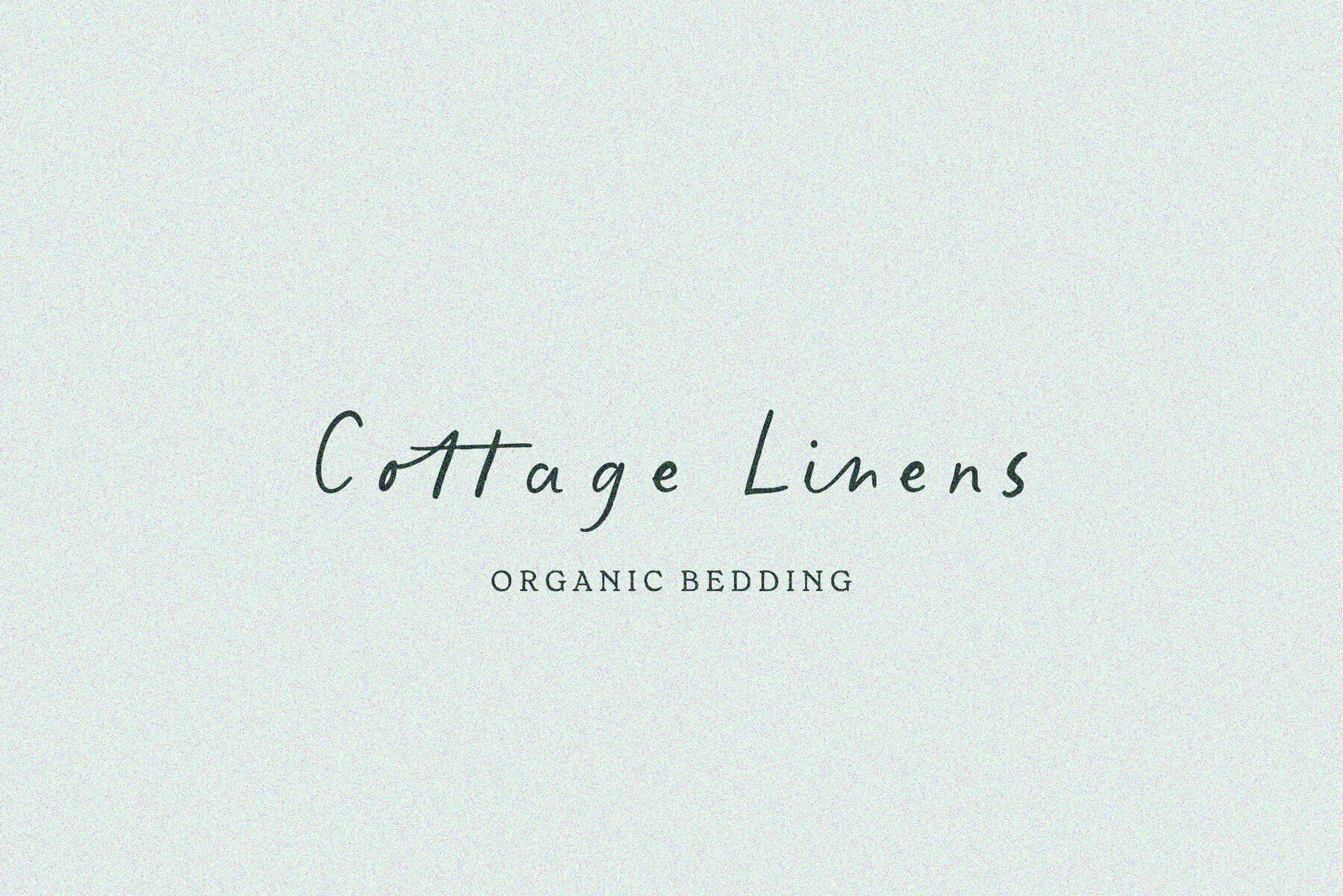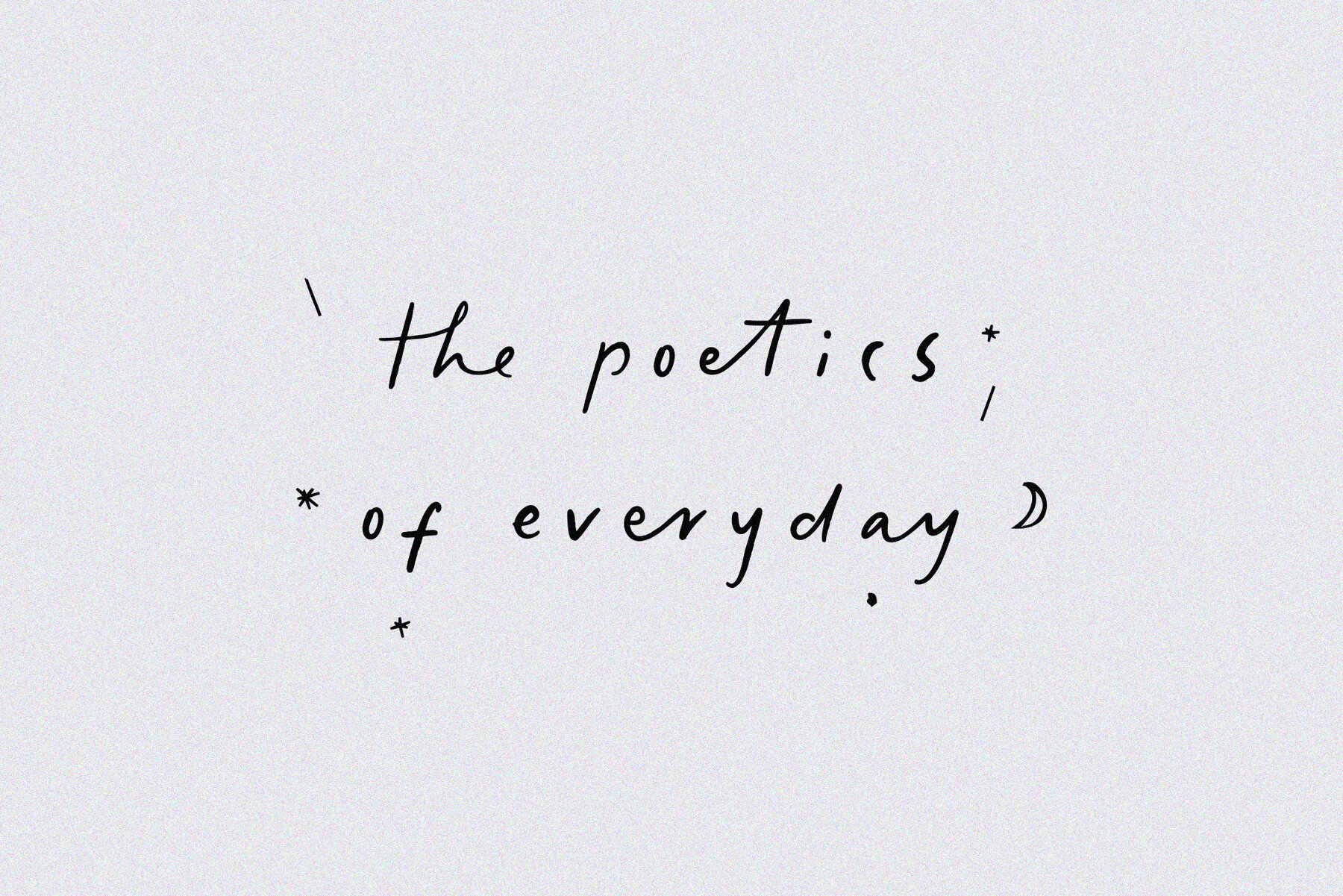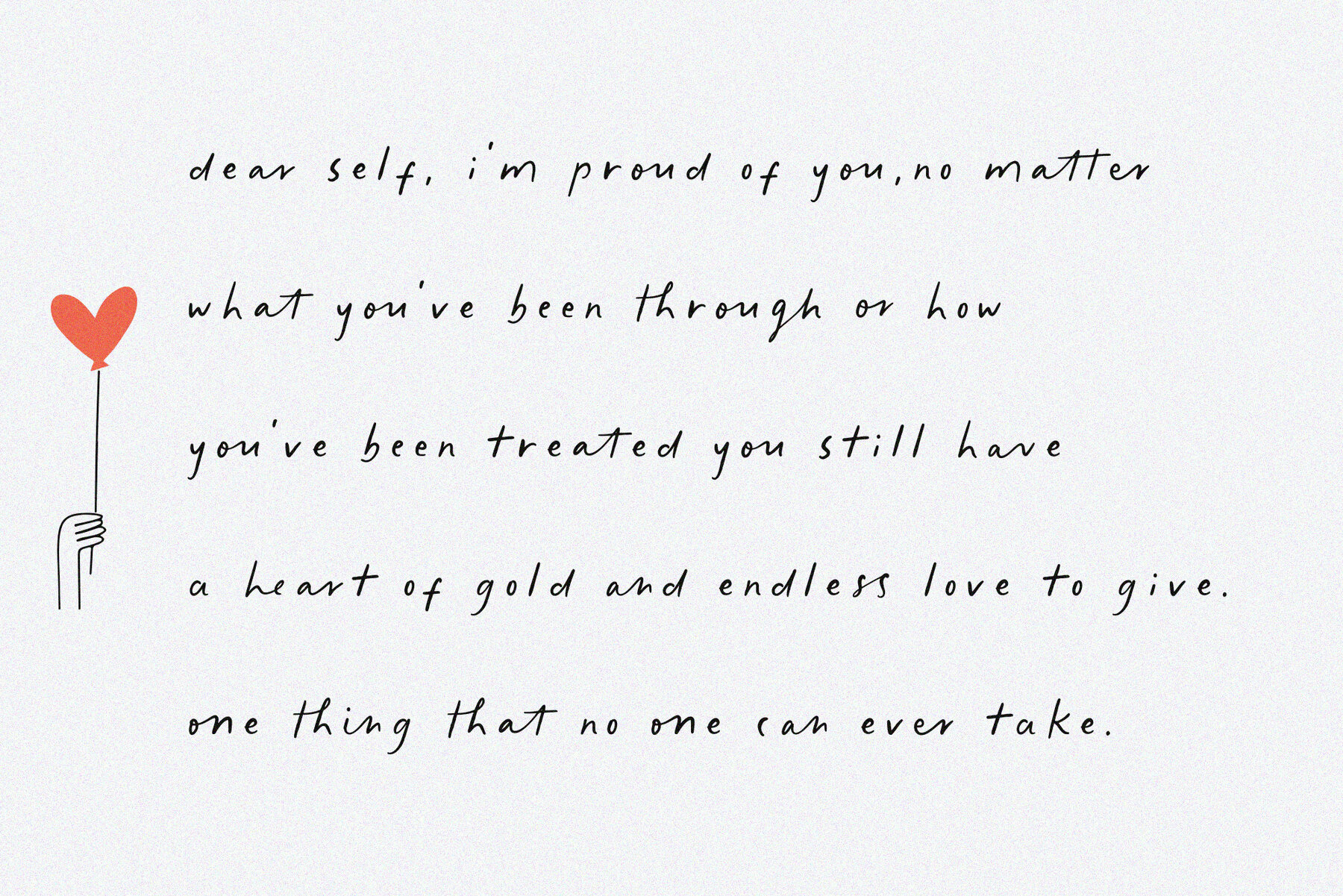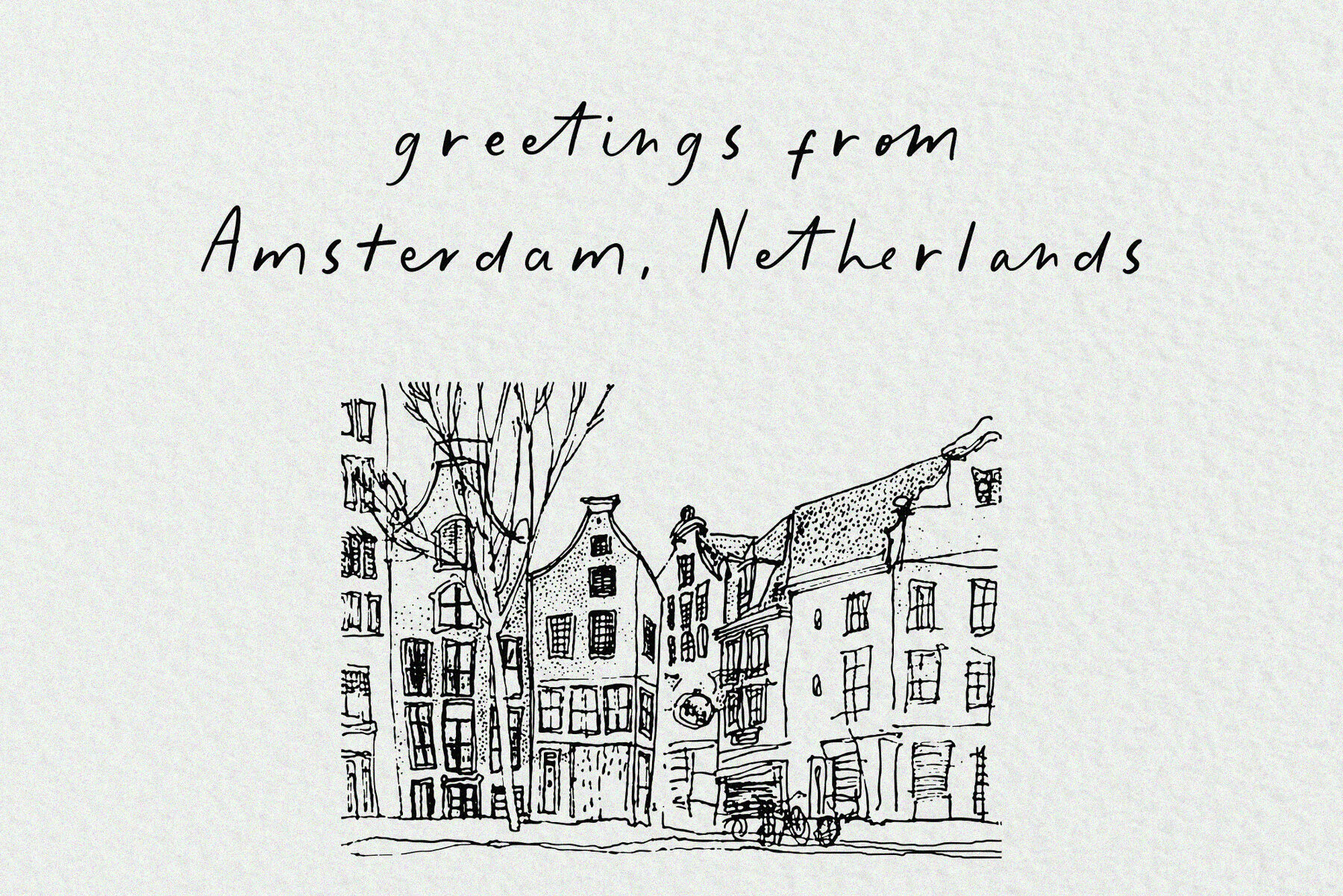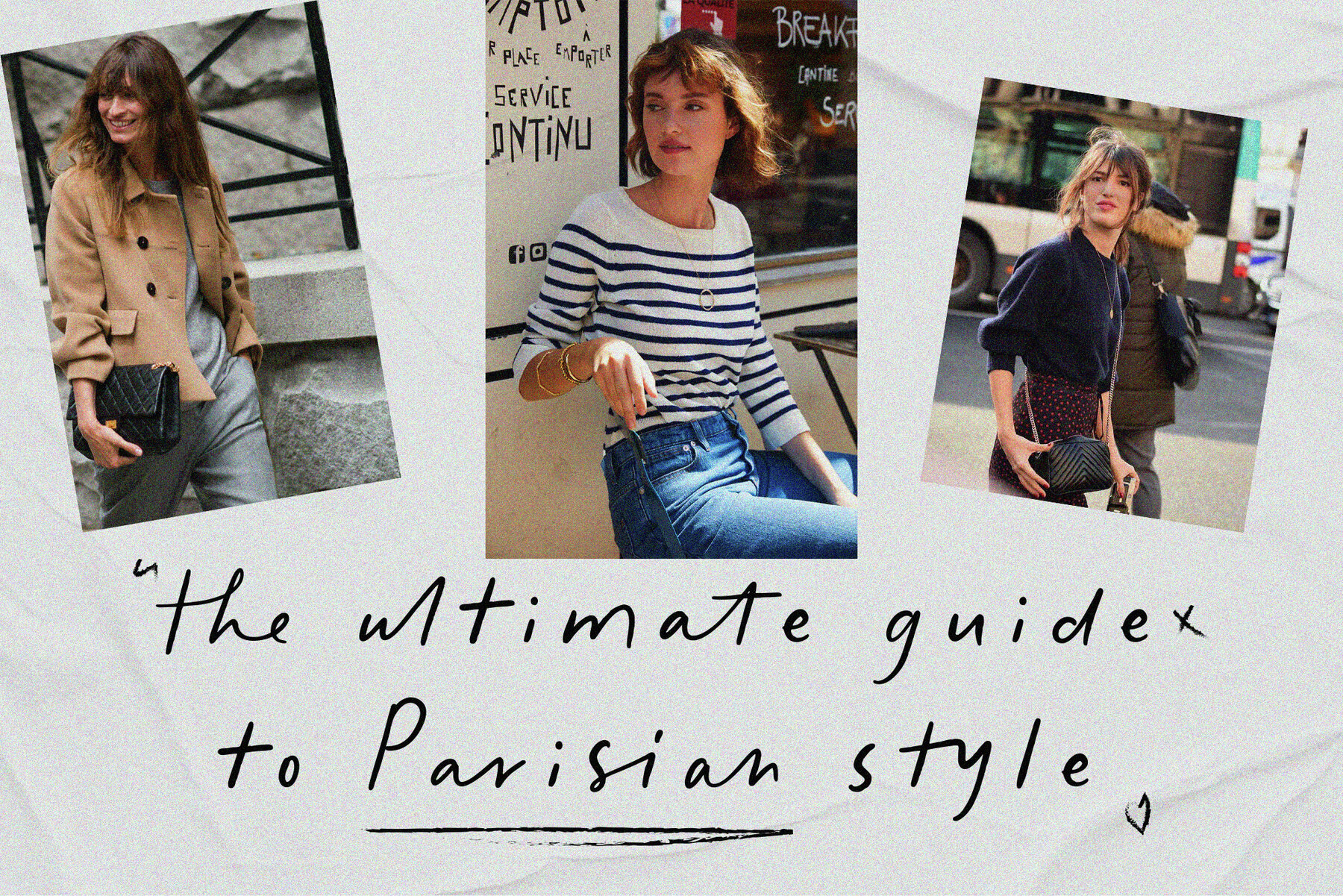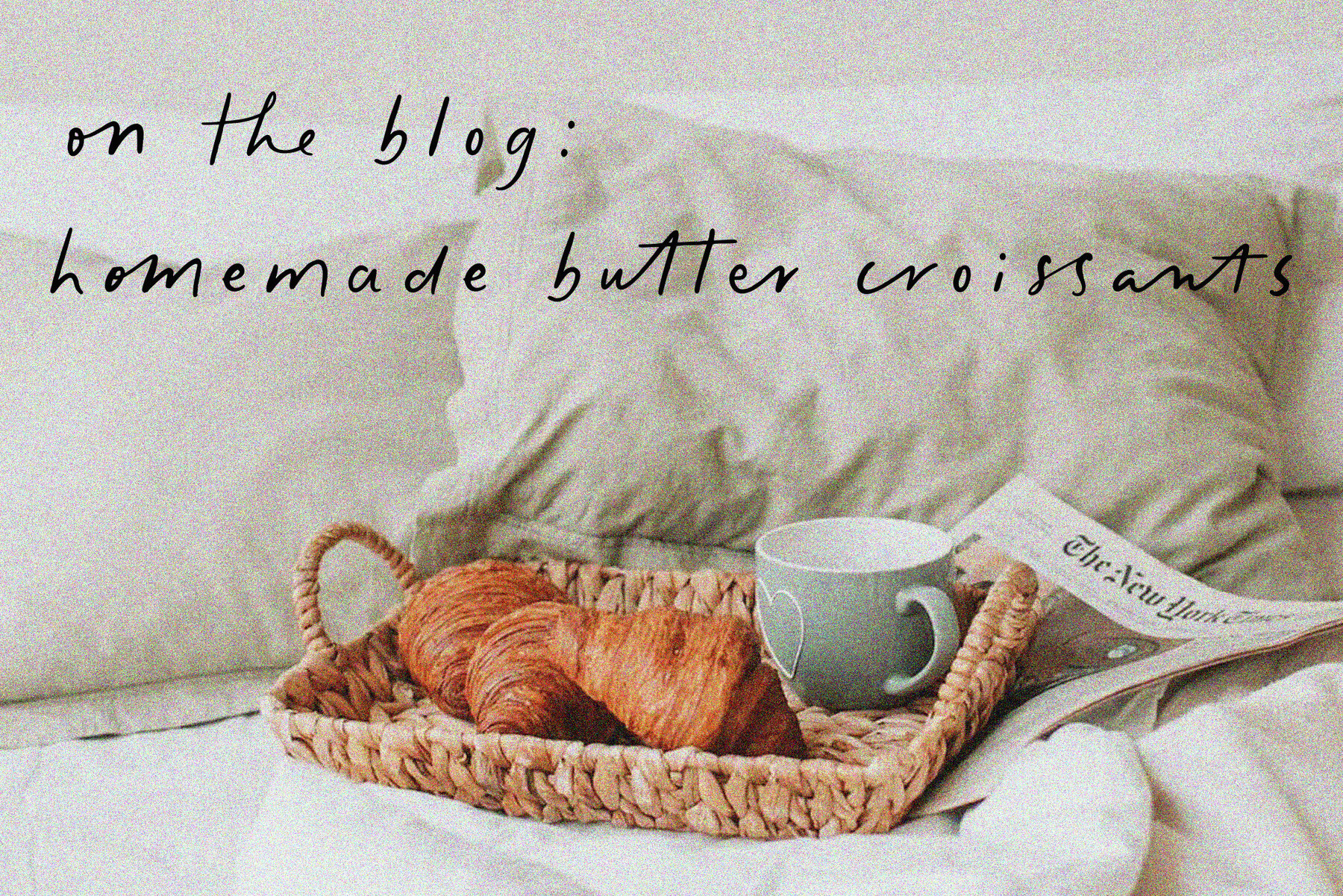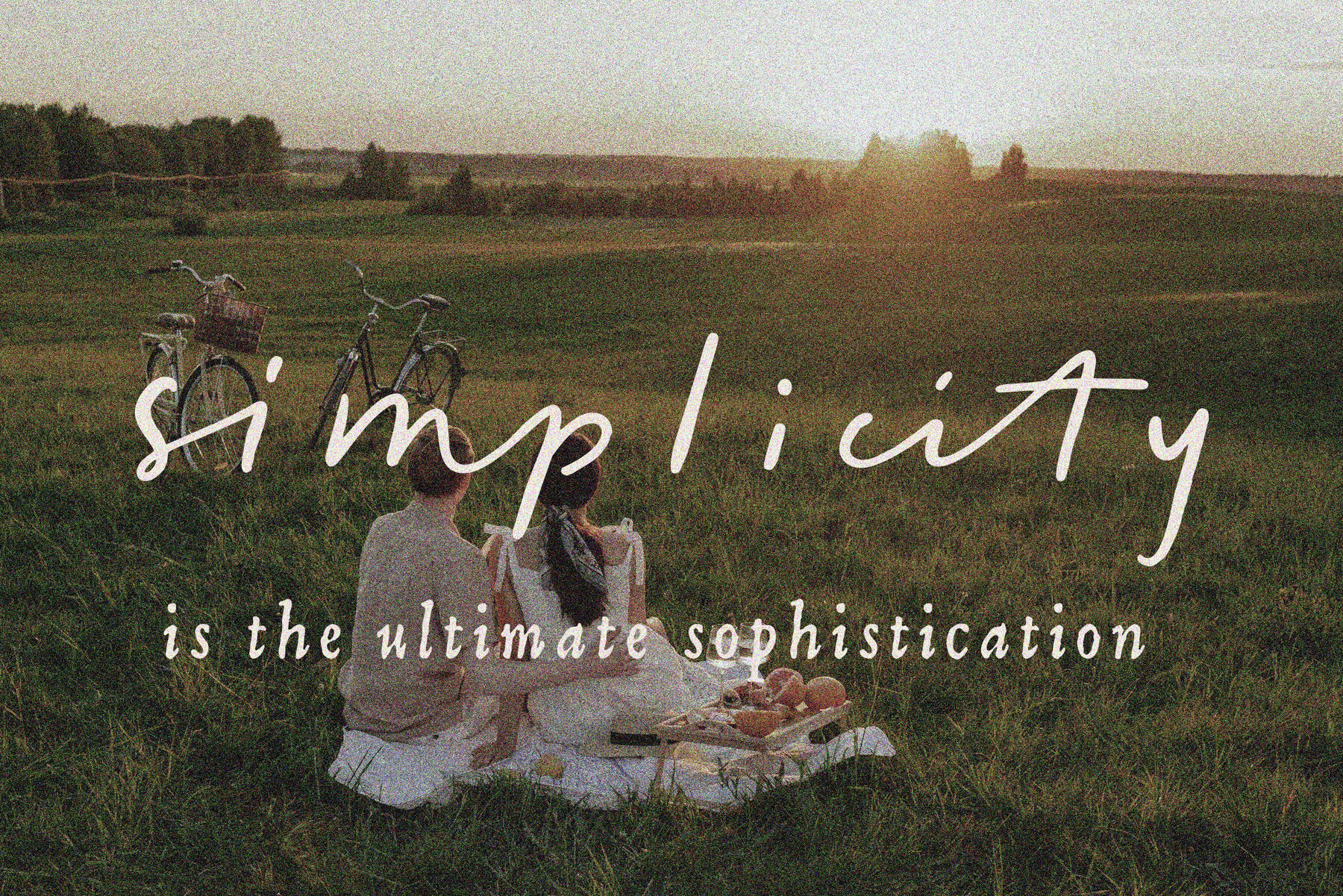
The Secret Things Font
The Secret Things
Relaxed and unpretentious, "The Secret Things" script brings a natural flair to any design. With 45 ligatures, this font seamlessly incorporates a handwritten feel, making your text appear genuinely personal and unique.
Perfect for a variety of projects, this script adds a touch of authenticity and charm, whether you're working on invitations, branding, or any creative venture. Enjoy the effortless elegance and organic style that "The Secret Things" delivers to your designs.